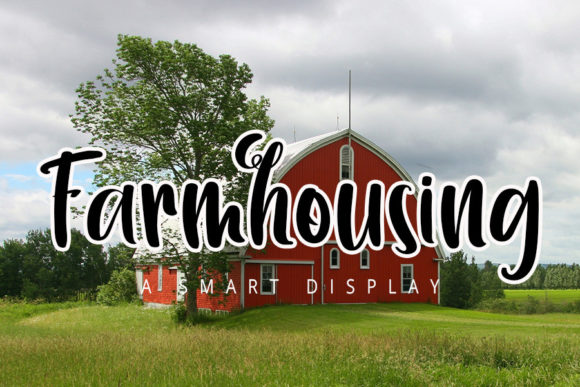
Introducing Farmhousing Font: The Playful and Quirky Handwritten Font for Creative Projects
Are you looking for a font that can add a touch of playfulness and friendliness to your creative projects? Look no further than Farmhousing Font! This fun and quirky handwritten font is perfect for designers and crafters who want to create engaging and approachable content for children and adults alike.
What is Farmhousing Font?
Farmhousing Font is a unique and charming handwritten font that embodies the spirit of playfulness and friendliness. Its quirky and irregular design makes it perfect for projects that require a personal and approachable touch. Whether you’re working on a children’s storybook, stationery, game, or any other crafty idea, Farmhousing Font is sure to bring a smile to your audience’s faces.
Characteristics of Farmhousing Font
So, what makes Farmhousing Font so special? Here are some of its key characteristics:
- Handwritten style: Farmhousing Font has a distinctly handwritten feel, with each character carefully crafted to look like it was written by hand.
- Playful and quirky: The font’s irregular design and whimsical flair make it perfect for projects that require a touch of playfulness and humor.
- Approachable and friendly: Farmhousing Font has a warm and welcoming feel, making it ideal for projects that need to connect with audiences of all ages.
- Highly versatile: This font can be used for a wide range of projects, from children’s storybooks and stationery to games and crafty ideas.
Use Cases for Farmhousing Font
So, what can you use Farmhousing Font for? Here are some ideas to get you started:
- Children’s storybooks: Farmhousing Font is perfect for kids’ books, with its playful and whimsical design sure to delight young readers.
- Stationery and greeting cards: Add a personal touch to your stationery and greeting cards with Farmhousing Font’s friendly and approachable style.
- Games and puzzles: Farmhousing Font is a great choice for games and puzzles, with its playful design sure to make your content more engaging and fun.
- Crafty ideas: From DIY tutorials to handmade crafts, Farmhousing Font is perfect for any project that requires a personal and creative touch.
Why Choose Farmhousing Font?
With so many fonts to choose from, why should you choose Farmhousing Font? Here are just a few reasons:
- Unique and distinctive: Farmhousing Font stands out from the crowd, with its quirky and playful design sure to grab attention.
- Easy to read: Despite its handwritten style, Farmhousing Font is highly legible and easy to read, making it perfect for content that needs to be both fun and functional.
- High-quality design: Farmhousing Font is designed to the highest standards, with careful attention to detail and a focus on quality.
If you’re looking for a font that can add a touch of playfulness and friendliness to your creative projects, Farmhousing Font is the perfect choice. With its quirky and irregular design, approachable style, and highly versatile nature, this font is sure to become a favorite among designers and crafters. So why wait? Download Farmhousing Font today and start creating engaging and fun content that will delight audiences of all ages!